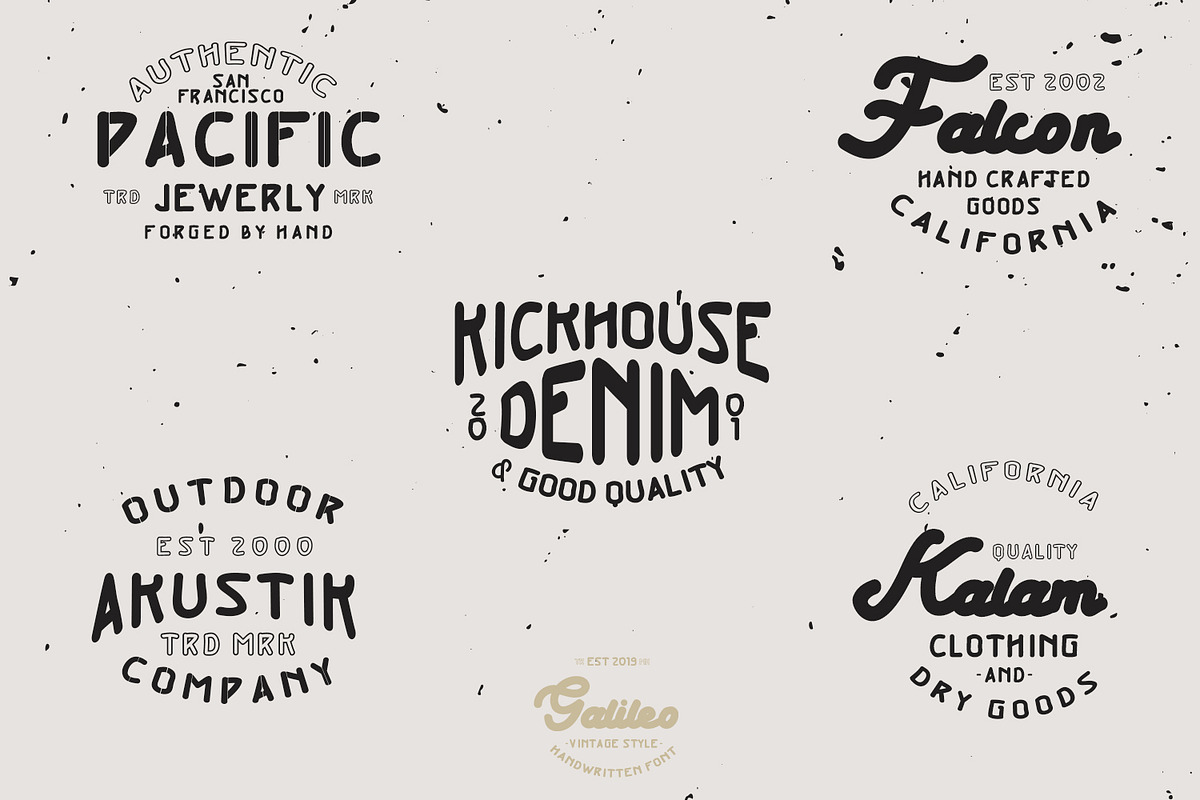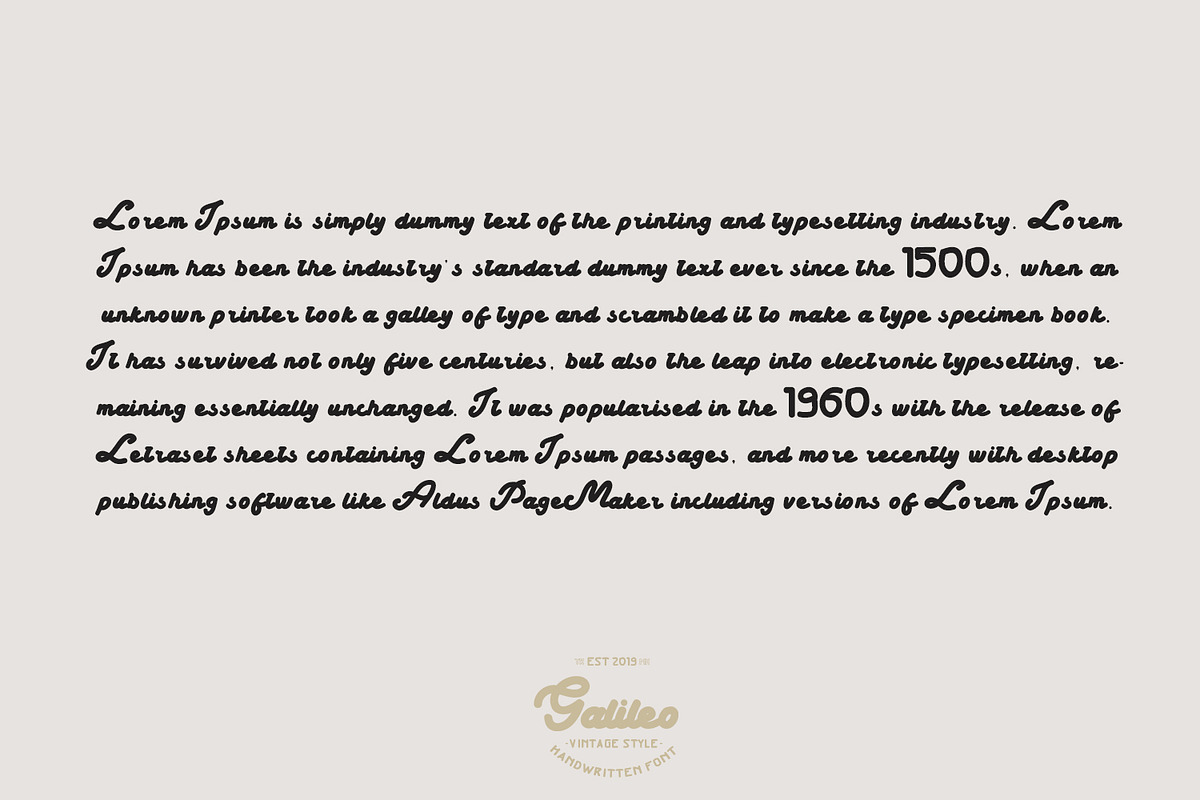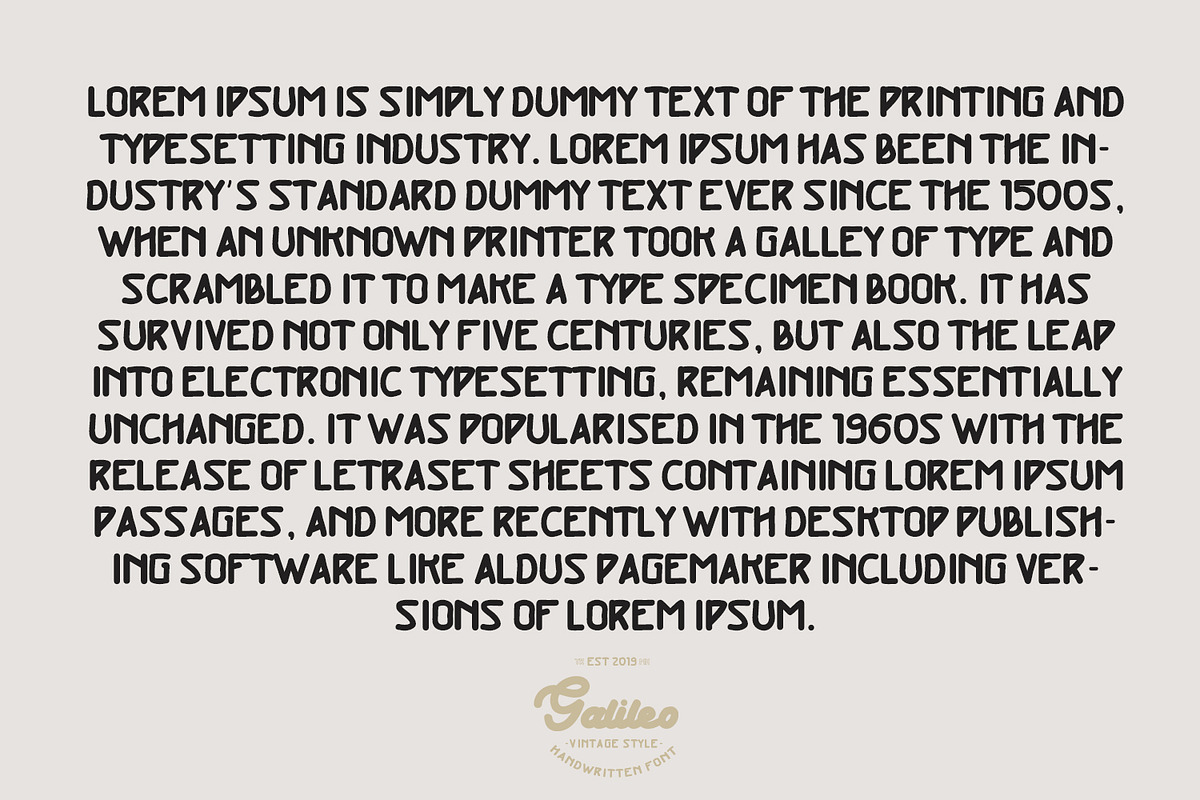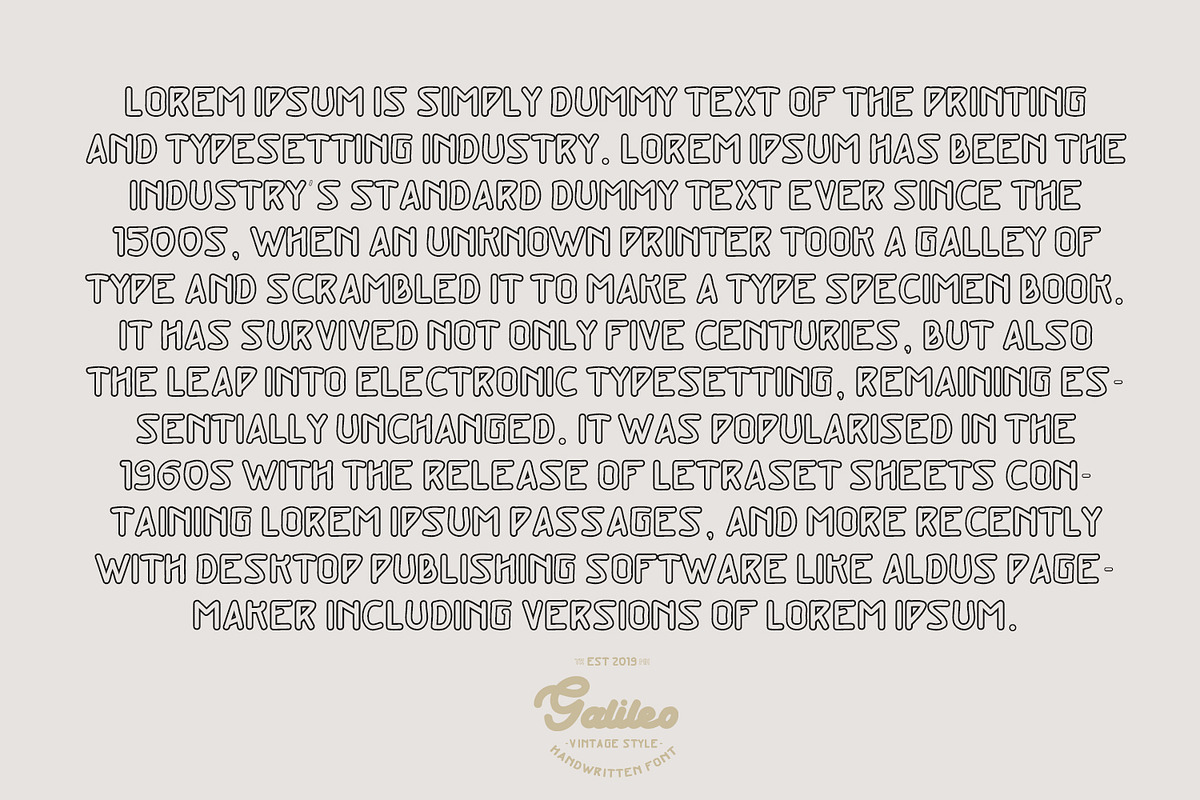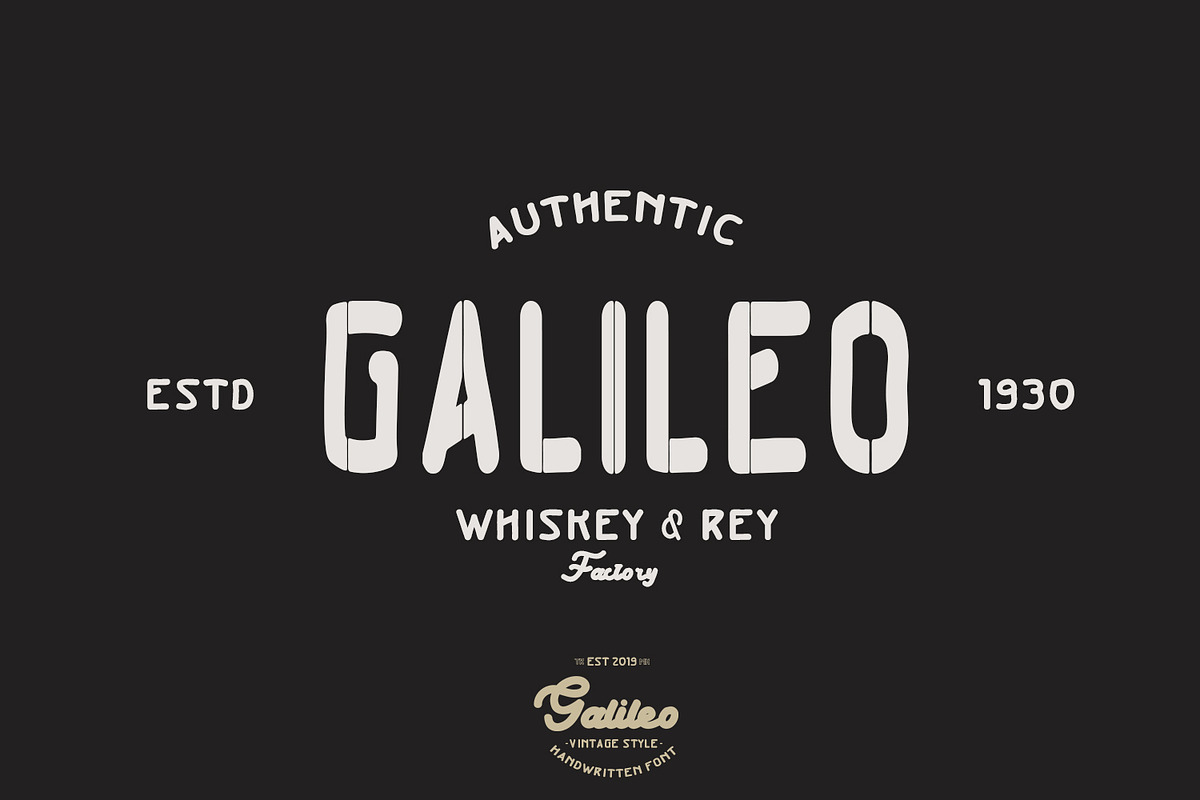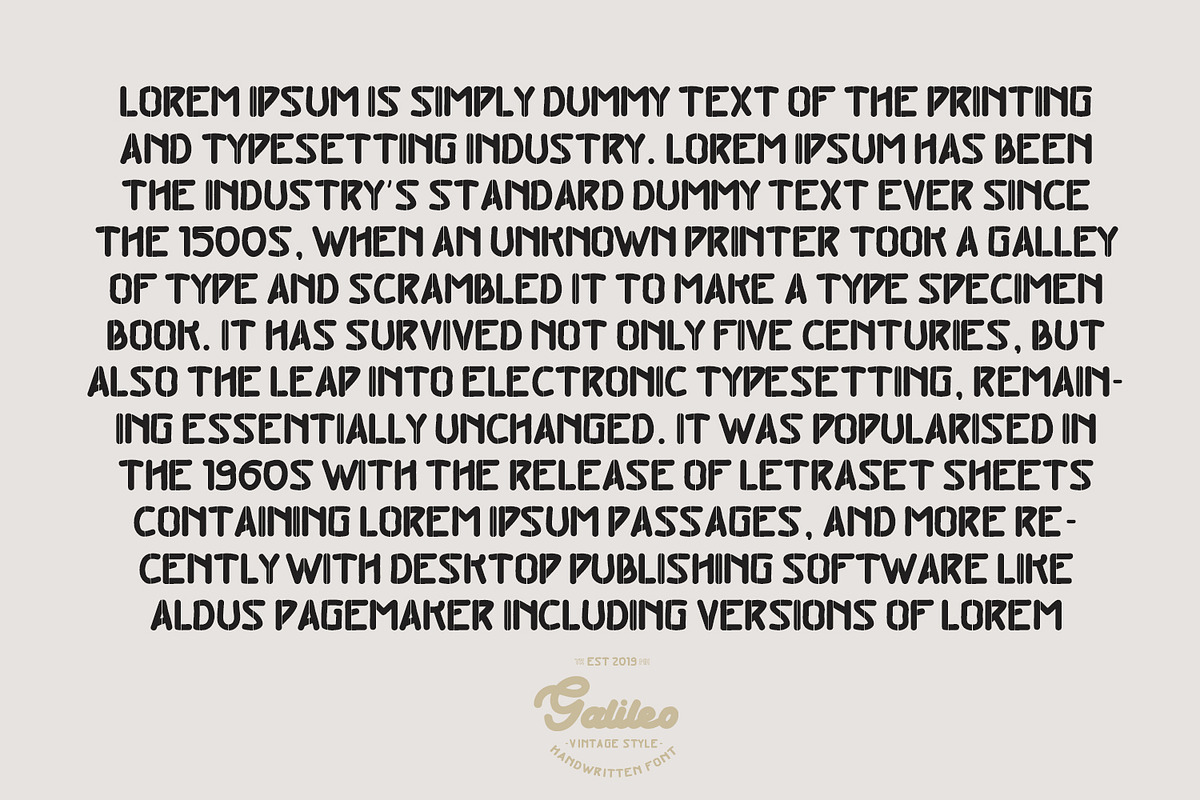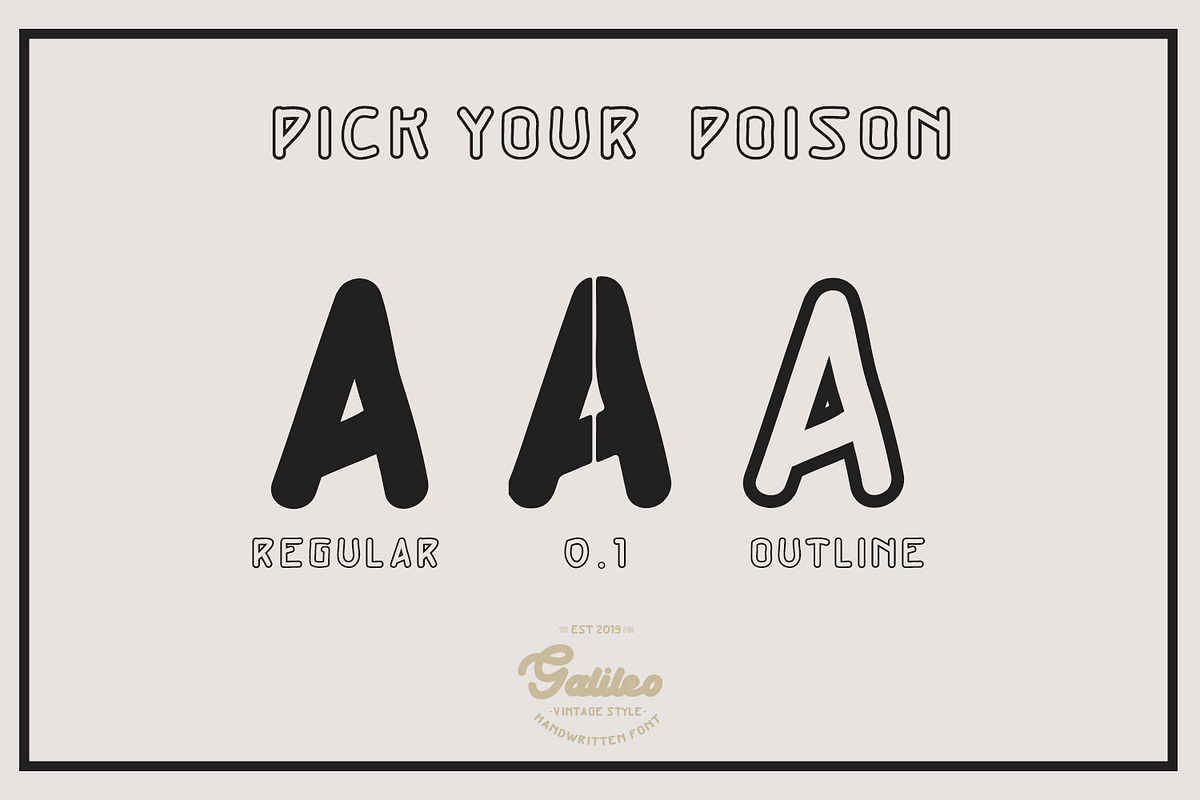
Galileo Vintage Font
Galileo, a vintage font family made by brush. Each letter that has been hand drawn and then scanned, which makes the font unique and special. Galileo contains 4 styles and can be used for headlines, t-shirts, logos and posters.
- Galileo contains 4 styles and can be used for headlines, t-shirts, logos and posters.
- Galileo Sans Regular
- Galileo Sans Outline Regular
- Galileo Sans 1.0 Regular
- Galileo Script Regular